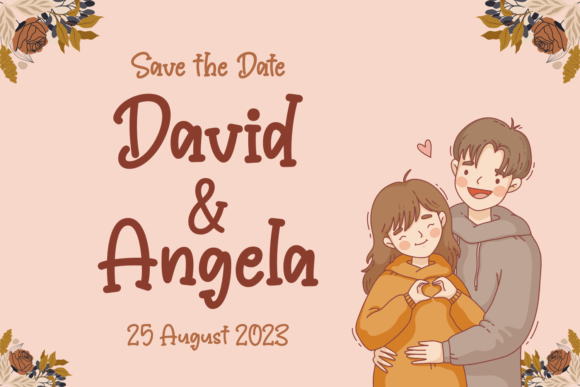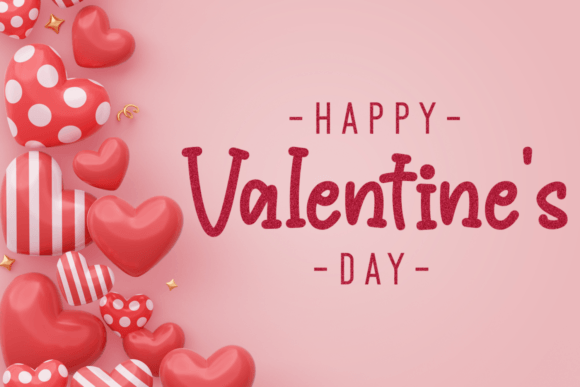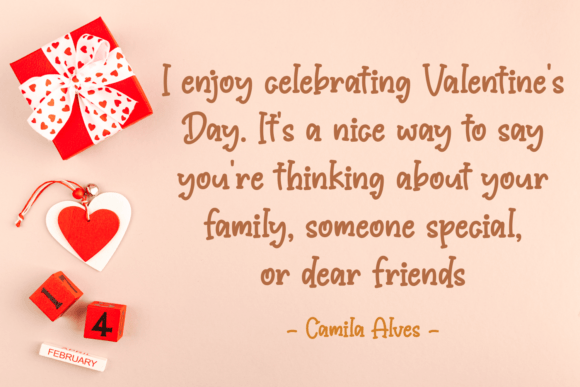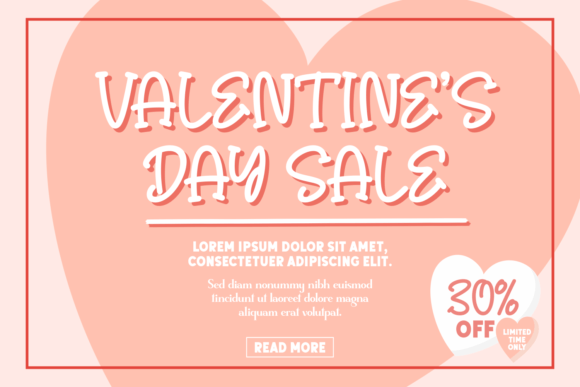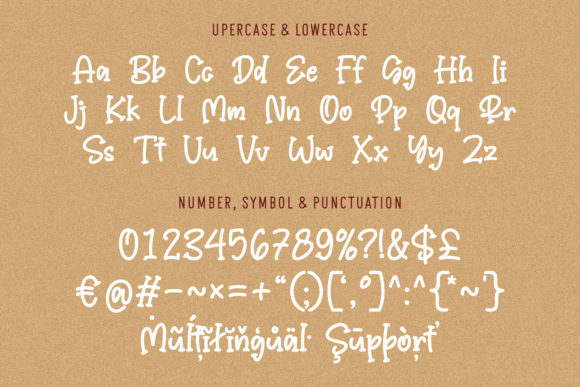
Discover the Charm of Beautiful Valentina Font
Are you looking for a font that can add a touch of playfulness and elegance to your designs? Look no further than the Beautiful Valentina font. This stunning font is perfect for creating a charming, warm, and inviting atmosphere for your projects, making it ideal for designers and crafters alike.
What Makes Beautiful Valentina Font So Special?
Beautiful Valentina is an elegant and cute font that features gentle curves and serifs, giving it a unique and captivating charm. Its classic design makes it versatile and suitable for a wide range of projects, from invitations and branding to logos and more. Whether you’re creating a wedding invitation, a logo for a children’s brand, or a social media graphic, Beautiful Valentina font is sure to impress.
Key Features of Beautiful Valentina Font
- Elegant and Cute Design: Beautiful Valentina font boasts a beautiful, elegant design with a touch of cuteness, making it perfect for projects that require a playful yet sophisticated look.
- Gentle Curves and Serifs: The font’s gentle curves and serifs give it a warm and inviting feel, making it ideal for creating a charming atmosphere in your designs.
- Versatile and Classic: The classic design of Beautiful Valentina font makes it versatile and suitable for a wide range of projects, from traditional to modern designs.
- Easy to Read: The font is easy to read, making it perfect for body text, headings, and titles.
Uses of Beautiful Valentina Font
Beautiful Valentina font is perfect for a variety of design projects, including:
- Invitations: Create stunning invitations for weddings, birthday parties, and other special occasions with Beautiful Valentina font.
- Branding: Use Beautiful Valentina font to create a unique and memorable brand identity for your business or product.
- Logos: Design a captivating logo for your business or product with Beautiful Valentina font.
- Social Media Graphics: Add a touch of elegance and playfulness to your social media graphics with Beautiful Valentina font.
- Packaging: Use Beautiful Valentina font to create eye-catching packaging for your products.
Tips for Using Beautiful Valentina Font
Here are some tips for using Beautiful Valentina font effectively in your designs:
- Pair with Other Fonts: Pair Beautiful Valentina font with other fonts to create a unique and visually appealing combination.
- Use Different Sizes: Use different sizes of Beautiful Valentina font to create a hierarchical structure in your design.
- Experiment with Colors: Experiment with different colors to find the perfect combination that matches your brand or design.
- Keep it Simple: Keep your design simple and clean to let Beautiful Valentina font shine.
| Font Name | Beautiful Valentina Font |
| Author | Kelik – 7NTypes |
Beautiful Valentina font is a stunning and versatile font that can add a touch of elegance and playfulness to your designs. With its gentle curves and serifs, this font is perfect for creating a charming, warm, and inviting atmosphere for your projects. Whether you’re a designer or crafter, Beautiful Valentina font is sure to become a favorite in your collection.
Beautiful Valentina font is a must-have for designers and crafters who want to add a touch of elegance and playfulness to their designs. With its unique charm and versatility, this font is sure to inspire your creativity and take your designs to the next level.